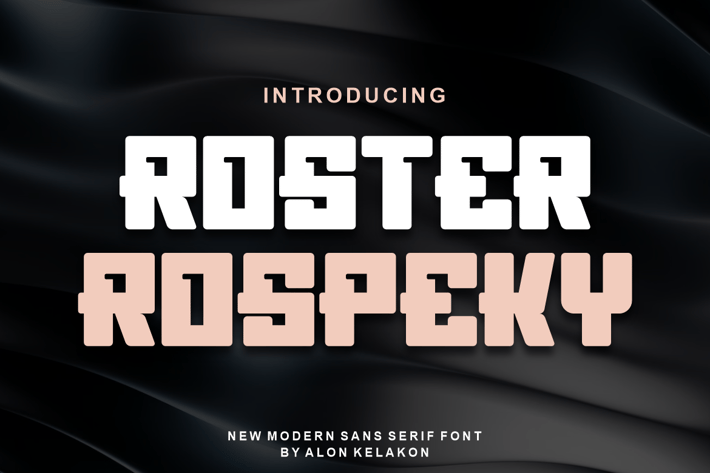
Roster Rospeky Font
Roster Rospeky Font is unique . Ready to use for your design like labeling, clothing, movie sceen, poster, movie title, gigs, album covers, logos, and much more.